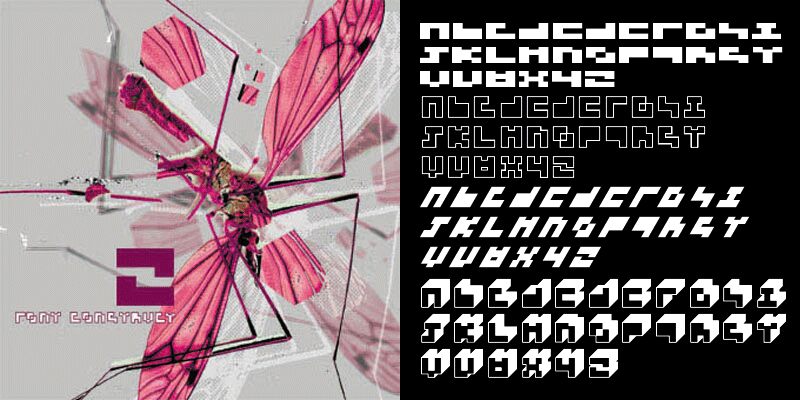
3x3-block by Marc Beekhuis is a free geometric 3D display font built from compact, right-angled forms arranged in a strict three-by-three logic. Its letters resemble small modular structures, with square cutouts and abrupt stepped edges shaping a dense, mechanical silhouette. Deep, consistent offset faces turn the block shapes into solid objects and add a strong, unmistakable arcade-era perspective.
Retro computing and arcade graphics are its clearest territory. The same constructed look suits game branding, electronic music posters, tech-event signage, and merchandise, where the recurring cube-like sections can become part of circuit, pixel, or architectural artwork rather than serving as ordinary text.